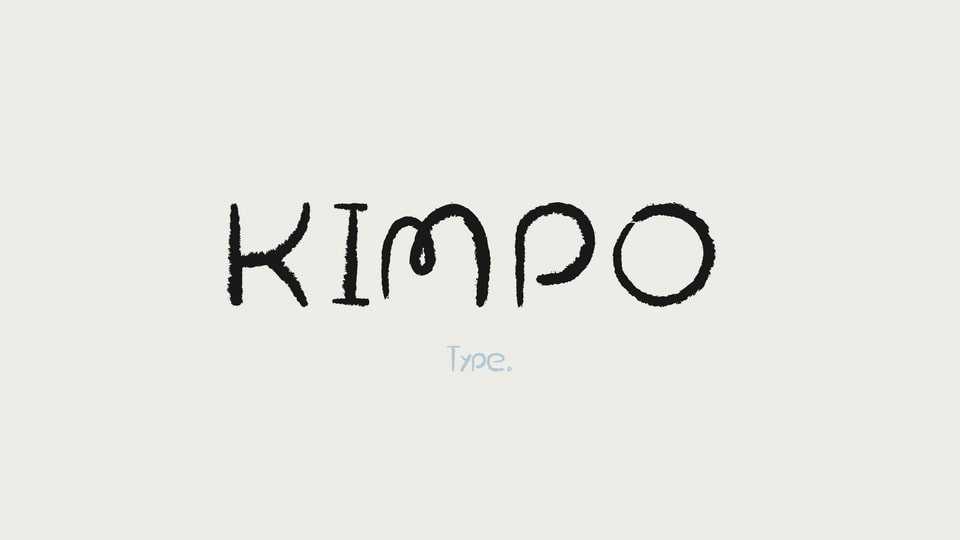
Download Kimpo font, a sans-serif typeface made to resemble the personal handwriting, with each character having been drawn by hand. With its natural and organic look, this font blends into various contexts, from eco-friendly branding to heartfelt personal messages.